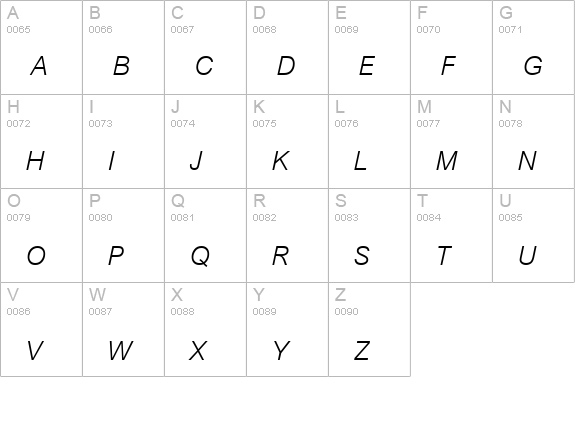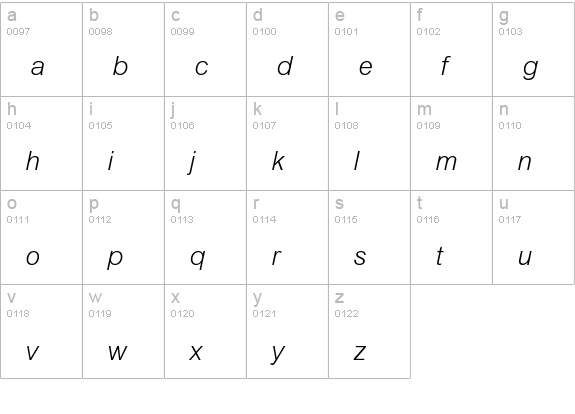
CordiaUPC Italic Font Details
CordiaUPC Italic is a distinctive, italic variant in the CordiaUPC typeface family \xE2\x80\x94 well suited to design and typography projects.
CordiaUPC Italic font is a versatile and elegant typeface that exudes sophistication and charm. Its sleek and stylish design makes it perfect for a variety of projects, from branding to editorial design. The italicized version adds a touch of flair and modernity to any text, making it stand out effortlessly. What's even better is that CordiaUPC Italic font is completely free to download at FontsMarket.com, allowing you to elevate your designs without breaking the bank. With its clean lines and contemporary aesthetic, this font is sure to make a lasting impression on your audience. Don't miss out on the opportunity to enhance your projects with this beautiful and free resource!